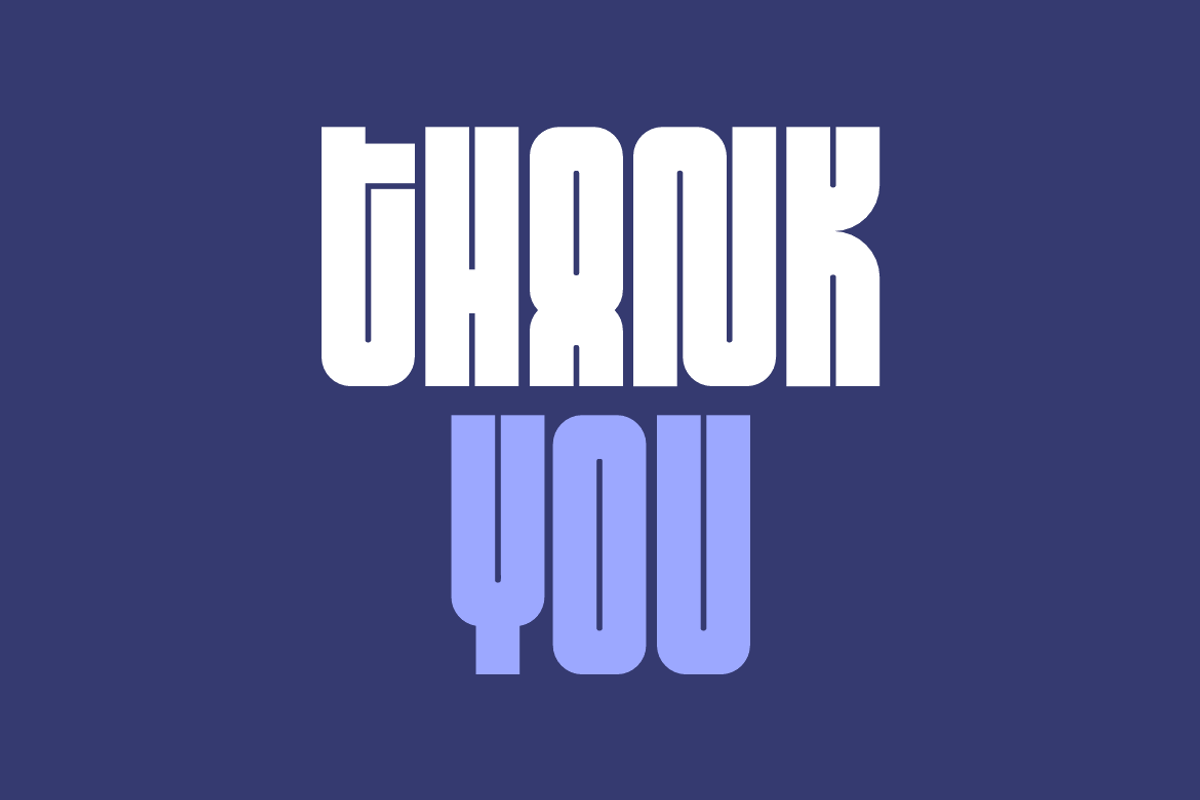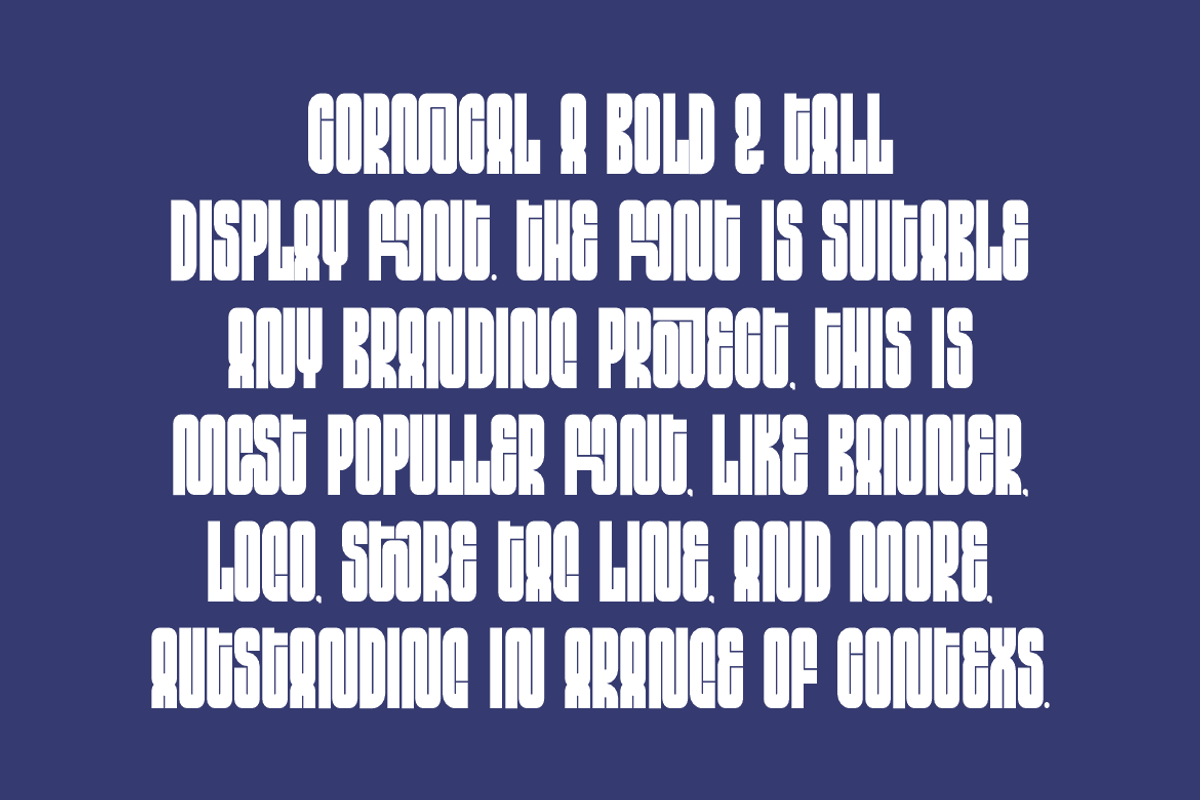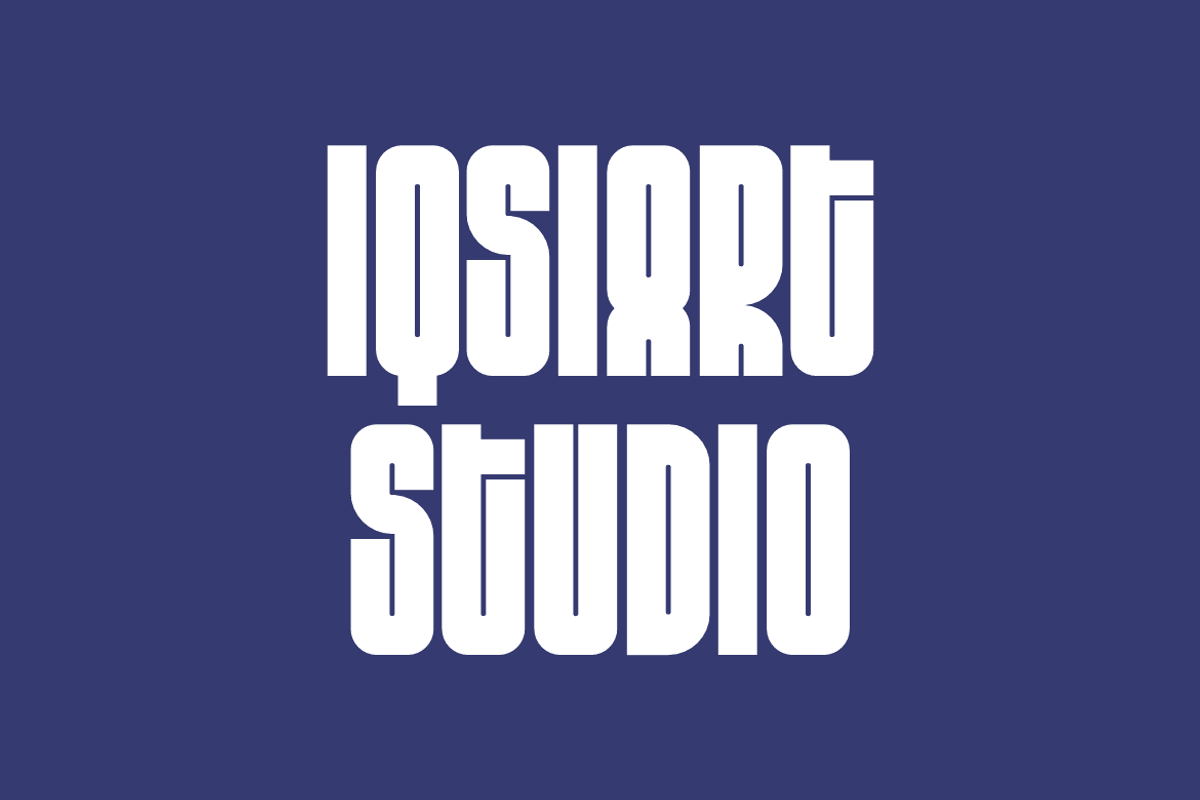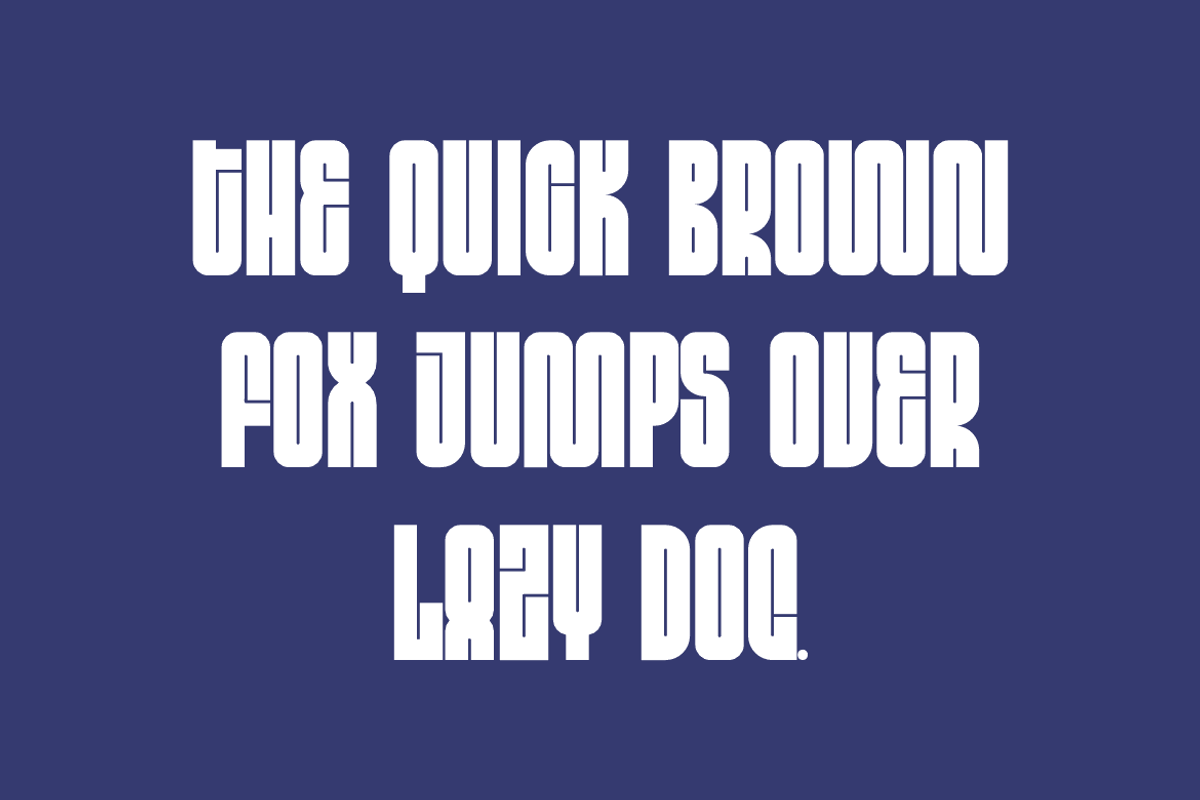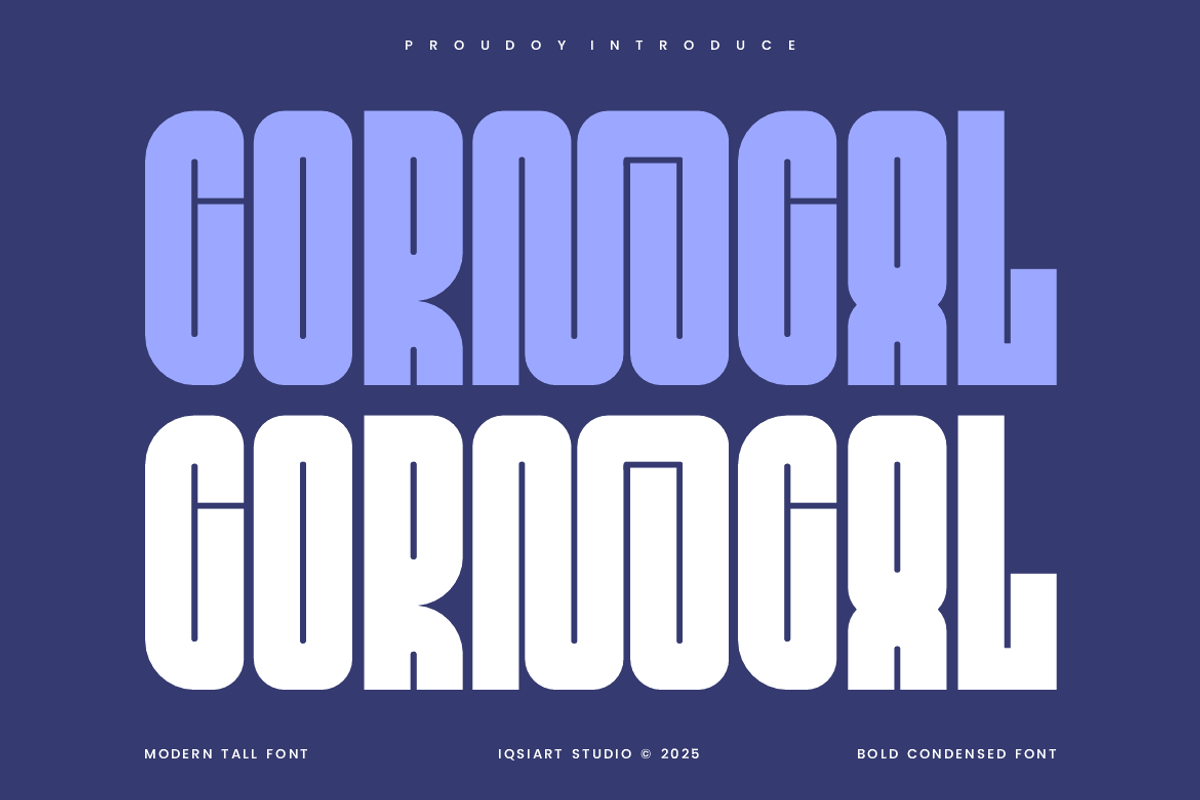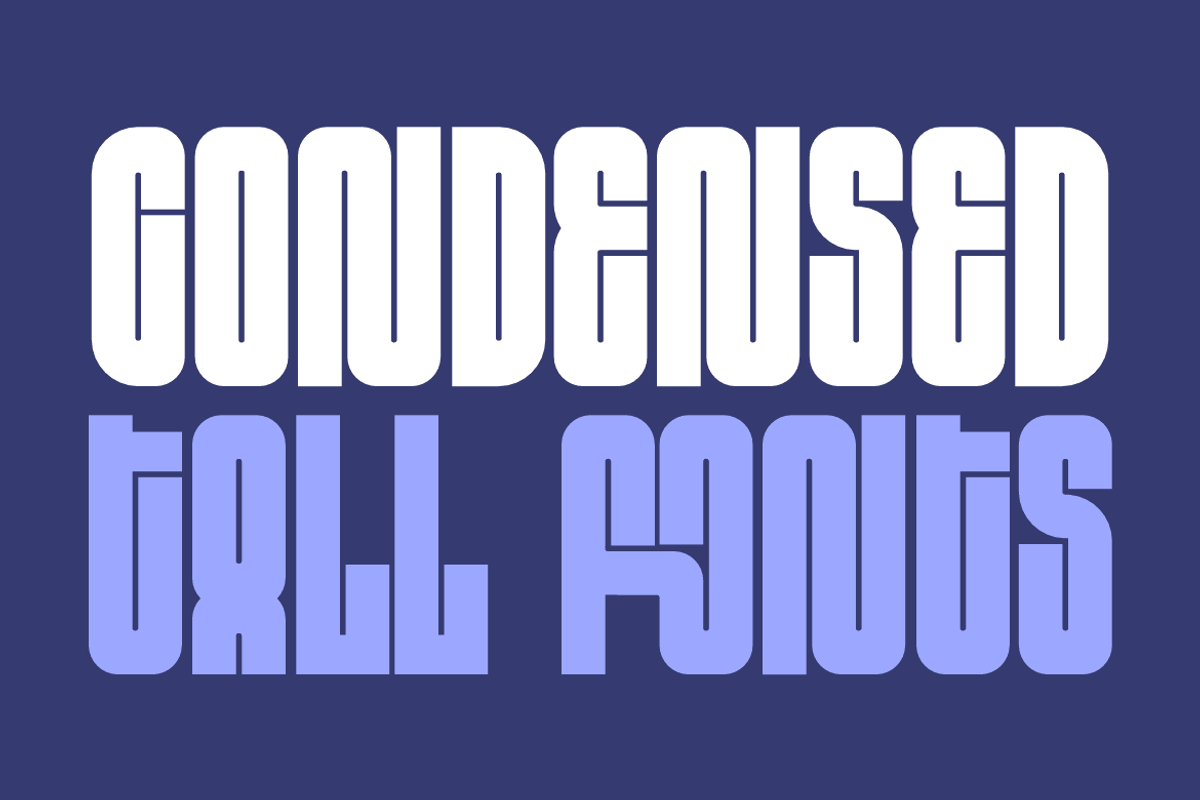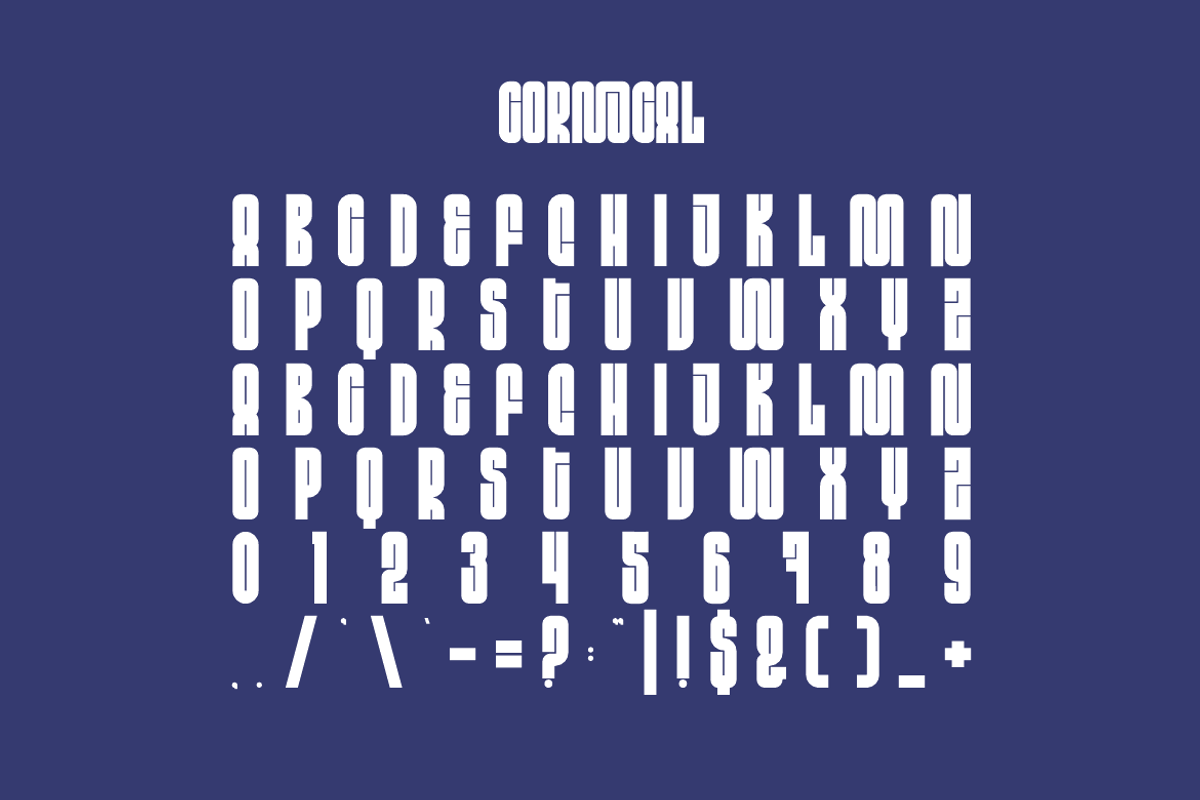
Cornocal - Condensed Tall Font
Cornocal Font is a best and authentic display font. This font can be used for your various needs. We provide various themes and font styles. visit our profile to get a wide variety of themes and different font styles you need.